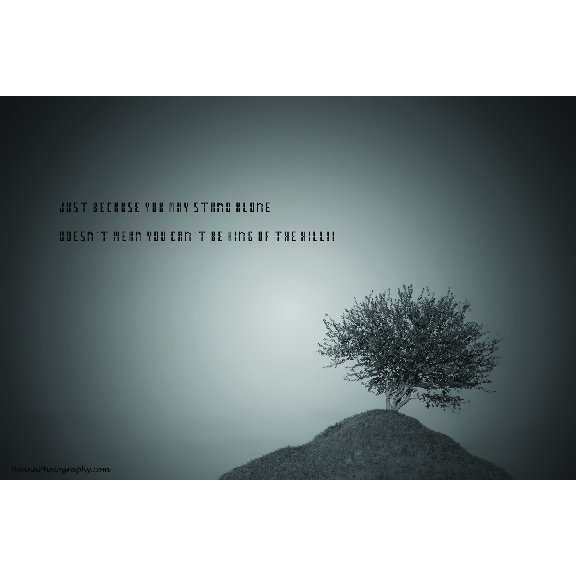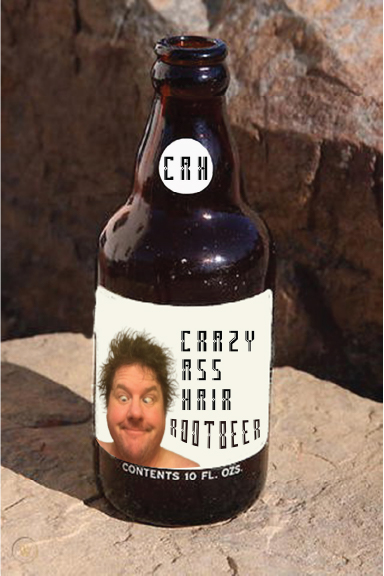
• I like the block text, as it seems to be easier to work with.  I did want to add a few things to the font to make them stand out.  I added the middle cut ins and the shading on the left side of the straight up and downs.
I made this quote and I also took the photo.